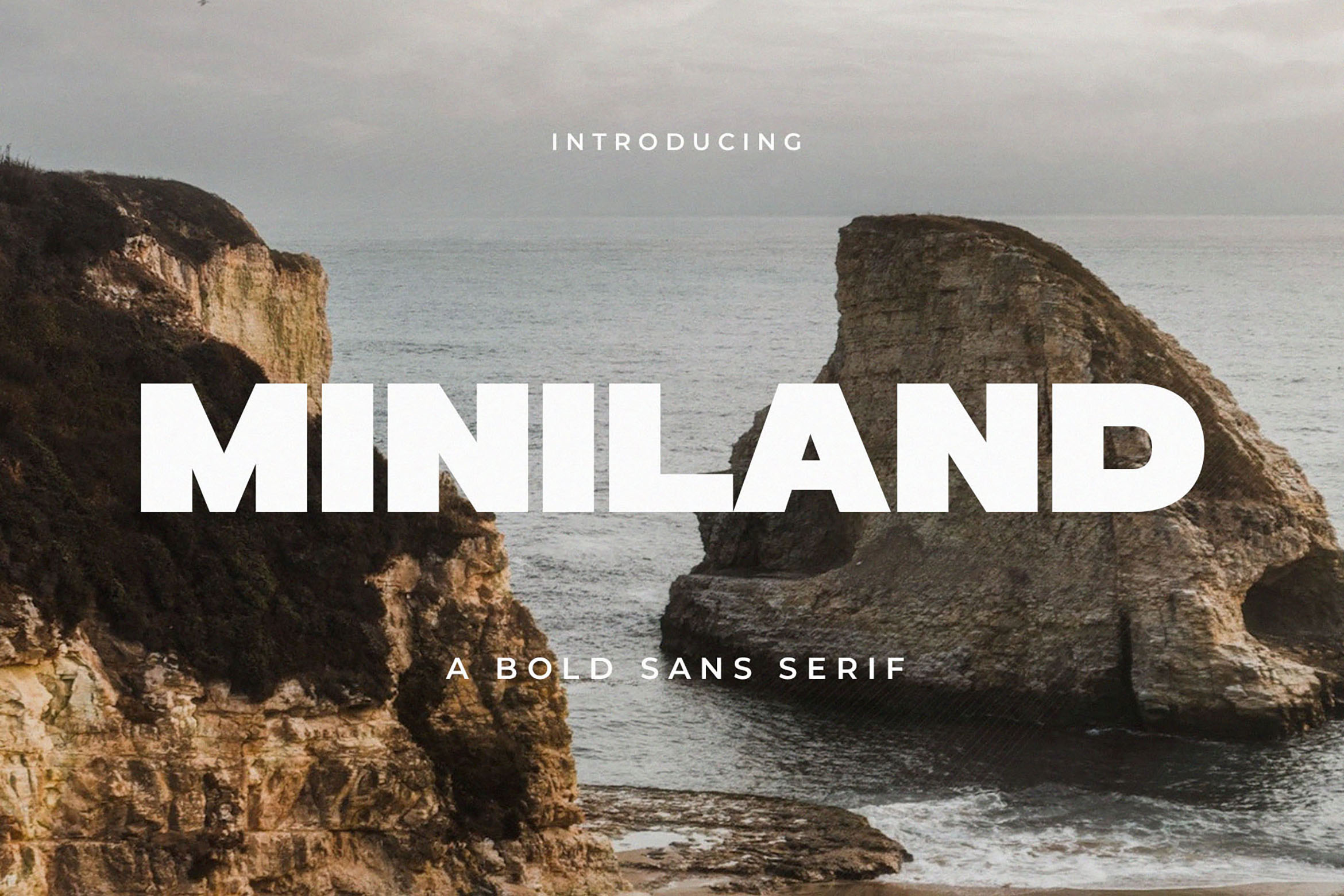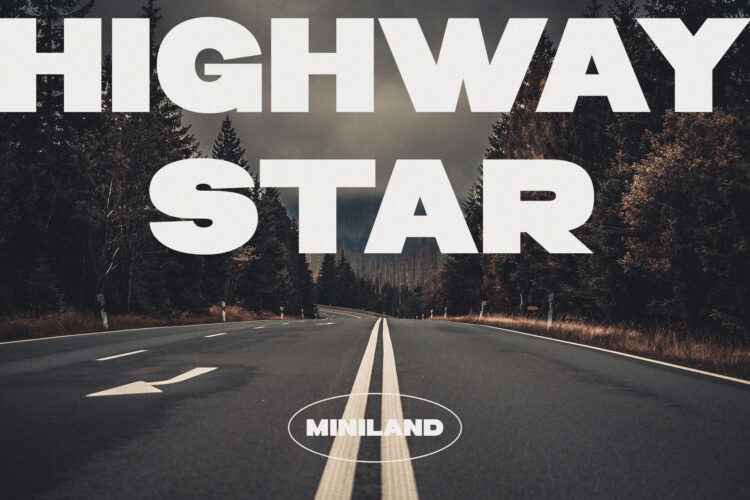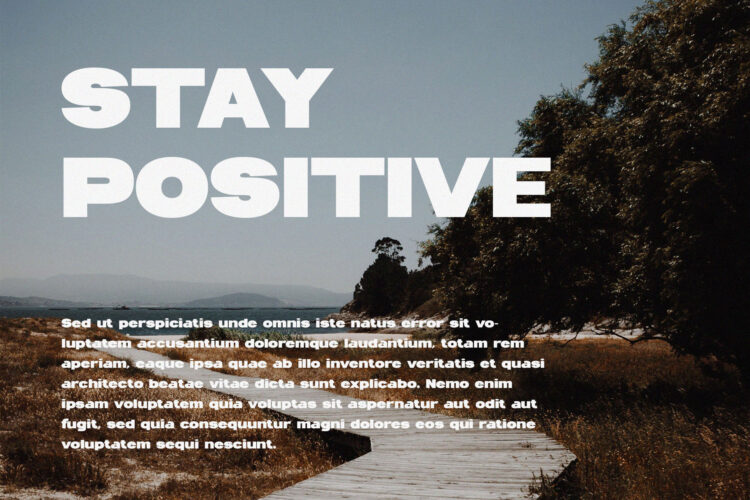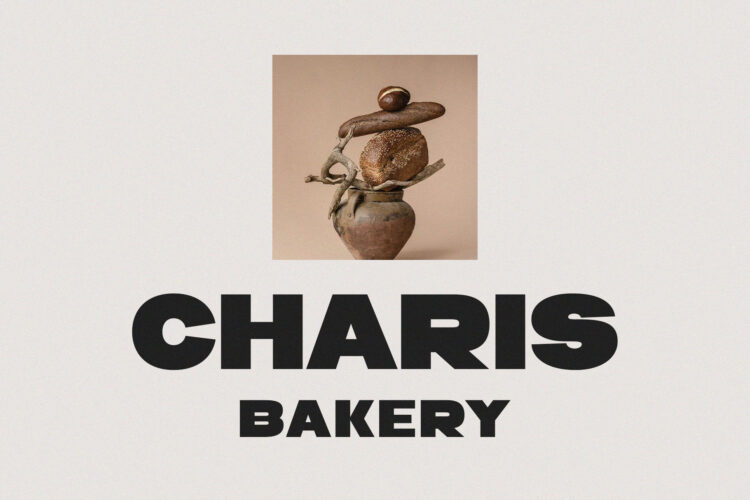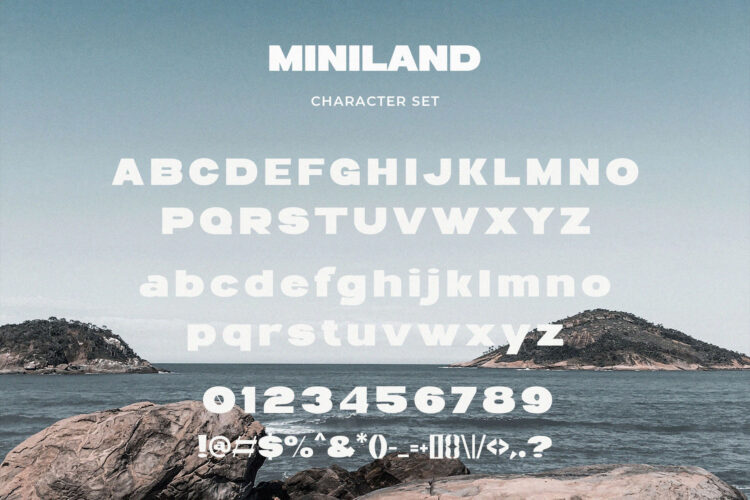
Introducing our new Miniland, modern sans serif font with elegant style this is perfect for branding, logos, invitation, magazines, product packaging and more.
Miniland – A Bold Sans Serif